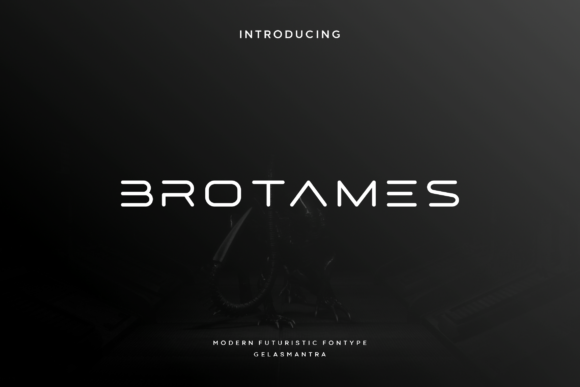
Brotames Font: Elevate Your Design with a Futuristic Twist
In the realm of typography, fonts play a crucial role in shaping the visual identity of a brand, product, or creative project. With the ever-evolving landscape of design, it’s essential to stay ahead of the curve with innovative and captivating fonts. One such font that has gained significant attention in recent times is Brotames Font. In this article, we’ll delve into the world of Brotames, exploring its unique features, design inspiration, and the vast possibilities it offers for various applications.
What is Brotames Font?
Brotames Font is a futuristic typeface that draws inspiration from the visual language of technology, commonly found in logos, sci-fi movies, games, and modern gadgets. Its design is rooted in minimalist principles, combined with distinctive letterforms that set it apart from traditional fonts. This fusion of simplicity and uniqueness makes Brotames an excellent choice for designers seeking to infuse their work with a futuristic and dynamic aesthetic.
Design Inspiration Behind Brotames
The design of Brotames Font is deeply influenced by the sleek, high-tech visuals that dominate our modern world. From the curved lines of sports cars to the angular shapes of cutting-edge gadgets, the font’s creator aimed to distill the essence of technology into a typographic form. This inspiration is evident in the font’s clean lines, geometric shapes, and a focus on functionality without sacrificing style.
The minimalist approach to Brotames’ design ensures that it remains versatile and highly legible, making it suitable for a wide range of applications, from digital screens to print materials. The unique letterforms, on the other hand, add a touch of personality and flair, allowing designers to create memorable and impactful designs.
Applications of Brotames Font
One of the key advantages of Brotames Font is its versatility. Its futuristic and dynamic look makes it an excellent choice for various design projects, including:
- Logos: Create a lasting impression with a logo that embodies innovation and forward-thinking.
- Labels: Stand out on product packaging with a label that exudes modernity.
- Posters: Capture the attention of your audience with a poster that features a bold, futuristic typography.
- Packaging: Elevate your product’s packaging with a design that communicates cutting-edge technology.
- Books and Movies: Add a touch of futurism to your book covers or movie posters, hinting at the innovative stories within.
- Presentations: Make your presentations more engaging with slides that feature a modern, dynamic font.
- Games: Enhance the gaming experience with a font that resonates with the futuristic and immersive world of gaming.
Benefits of Using Brotames Font
Choosing Brotames Font for your design projects comes with several benefits:
- Uniqueness: Stand out from the crowd with a font that offers a fresh, futuristic look.
- Versatility: Use Brotames across various platforms and applications, from digital to print.
- Legibility: Maintain high legibility even at smaller sizes, ensuring your message is effectively communicated.
- Customization: With its unique design, Brotames provides a solid foundation for further customization to fit your project’s specific needs.
Tips for Using Brotames Font Effectively
To maximize the impact of Brotames Font in your designs, consider the following tips:
- Combine with Images: Pair Brotames with high-quality images or graphics that complement its futuristic vibe.
- Play with Colors: Experiment with bold and contrasting colors to enhance the font’s dynamic appearance.
- Mix and Match: Don’t be afraid to combine Brotames with other fonts to create visual interest and hierarchy.
- Consider Context: Ensure that Brotames aligns with the overall theme and message of your project.
Brotames Font is a powerful tool for designers looking to infuse their work with a futuristic edge. Its unique blend of minimalist design and technological inspiration makes it a versatile and impactful choice for a wide range of applications. By understanding the design inspiration behind Brotames and exploring its various applications and benefits, designers can unlock new creative possibilities and elevate their designs to new heights.
The Future of Typography: Where Brotames Fits In
As we look to the future of typography, fonts like Brotames are leading the way, pushing the boundaries of traditional design and embracing the visual language of technology. With its futuristic aesthetic and versatile applications, Brotames Font is poised to become a staple in the world of design, empowering creatives to create bold, innovative, and memorable works.